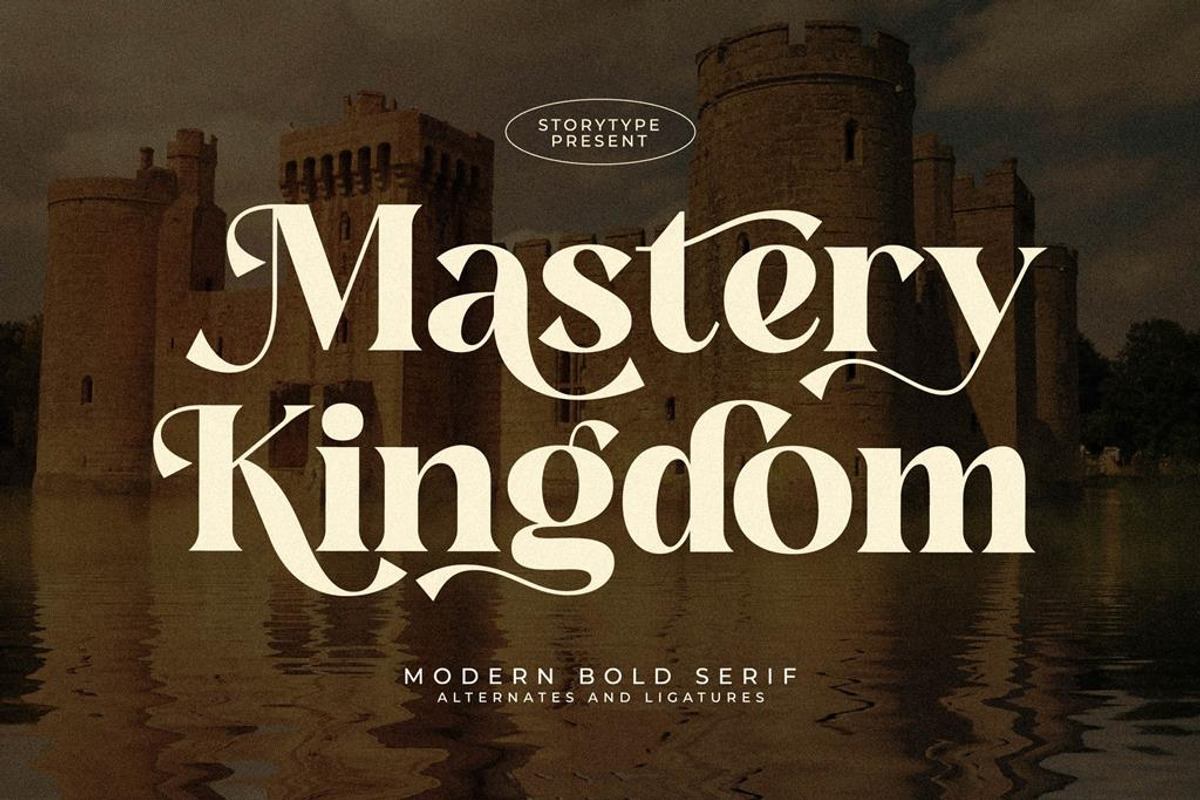
Mastery Kingdom Modern Bold Serif Free Download
Mastery Kingdom Modern Bold Serif Font Free Download is a powerful and elegant typeface that blends modern design with timeless sophistication. Please note: you must purchase this font for commercial use, but you can test it through a free download. Featuring strong serifs, high contrast, and refined details, this font is perfect for luxury branding, editorial layouts, packaging, and fashion-inspired designs.
Its bold presence commands attention while maintaining a classy, upscale feel. Whether you're designing a magazine cover, logo, or high-end website, Mastery Kingdom Modern Bold Serif Font Free Download offers the perfect balance of style and strength. It’s fully compatible with design tools like Adobe Illustrator, Photoshop, and Canva, ensuring a smooth workflow for creatives at every level. Download it today for personal use and discover how this versatile serif font can elevate your typography with regal charm and modern flair.